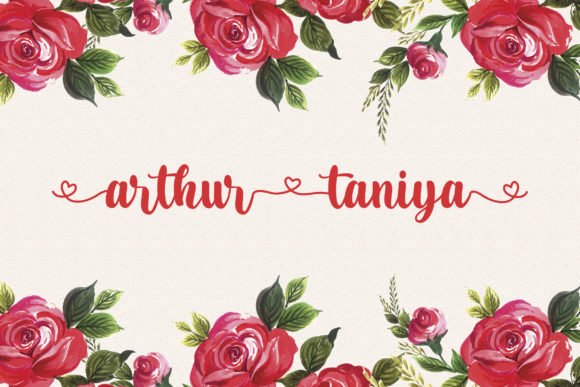
Discover the Perfect Script Font for Your Next Design Project
There’s nothing quite like the rush of creativity that comes with starting a new design project. You’ve got a blank canvas, a spark of inspiration, and a vision to bring it all together. But, have you ever felt like your typography is holding you back? That’s where the Arthur Taniya Font comes in – a beautifully crafted script font designed to elevate your projects to new heights.
With its stunning heart swashes and classy calligraphic influences, the Arthur Taniya Font is the perfect choice for designers looking to add a touch of sophistication and elegance to their work. Whether you’re creating a wedding invitation, a branding package, or a marketing campaign, this font is sure to impress. And, with its PUA encoding, accessing the available glyphs and swashes is a breeze, making it a valuable addition to any designer’s toolkit.
Arthur Taniya Font Key Features
- Unique Characteristics: The Arthur Taniya Font features a unique blend of modern and traditional elements, with subtle nuances that evoke a sense of elegance and sophistication.
Arthur Taniya Font Review
Initially, I was drawn to the Arthur Taniya Font due to its unique blend of traditional and modern elements ✨. The font’s soft, flowing lines and subtle nuances in letterform make it an excellent choice for body text. It’s particularly well-suited for projects that require a touch of elegance and sophistication.
- The font’s legibility is impressive, even at smaller font sizes ✨.
- The Arthur Taniya Font works well in digital applications, such as web design and mobile apps ✨.
- It’s an excellent choice for projects that require a unique, handmade feel ✨.
However, I do have some reservations about the font’s limitations ⚠️. For instance:
- The font’s weight range is somewhat limited, which may make it difficult to use in situations where a bold or italic version is required ⚠️.
- The font’s kerning can be a bit wonky at times, which may lead to some spacing issues ⚠️.
Overall, I would say that the Arthur Taniya Font is a solid choice for designers who are looking for a unique, high-end feel. While it may not be perfect, its strengths outweigh its weaknesses in many cases. With a bit of tweaking and experimentation, I’m confident that this font can be a valuable addition to any designer’s toolkit.
Common use cases for the Arthur Taniya font include:
– Creating elegant invitations or wedding stationery.
– Designing luxurious branding materials.
– Adding a touch of sophistication to digital presentations.